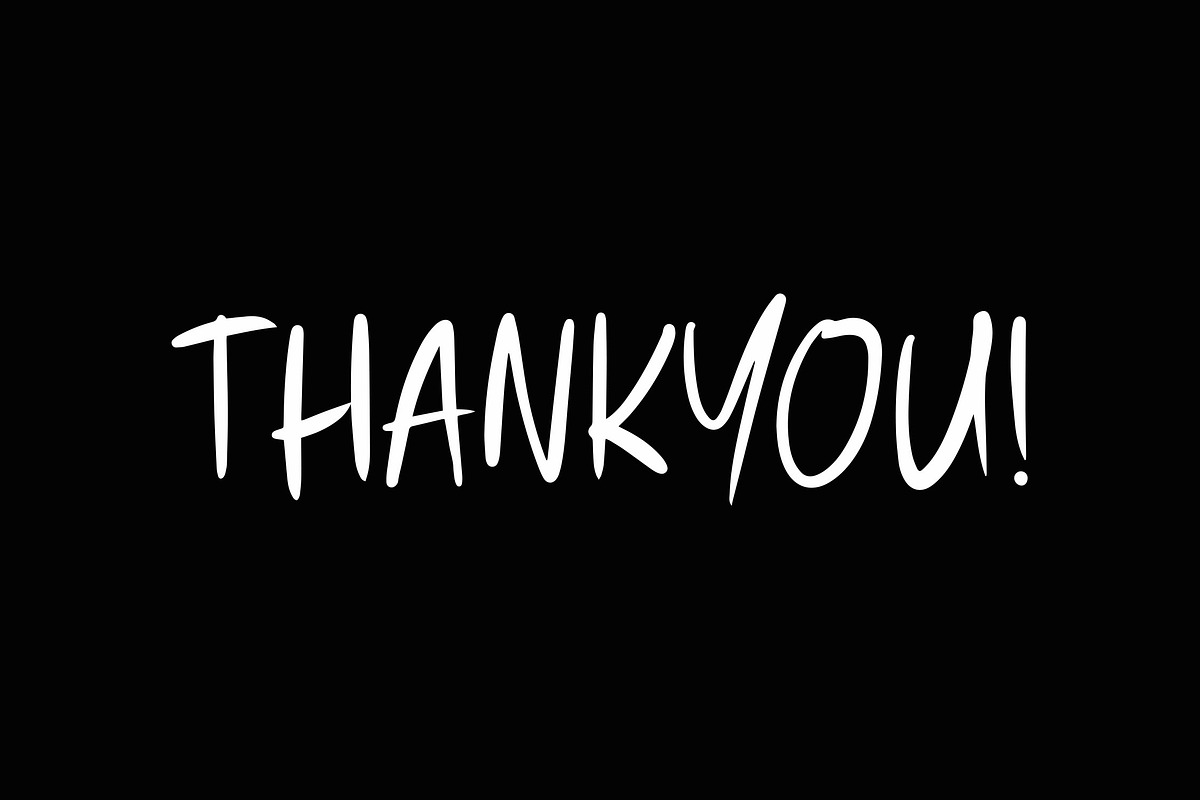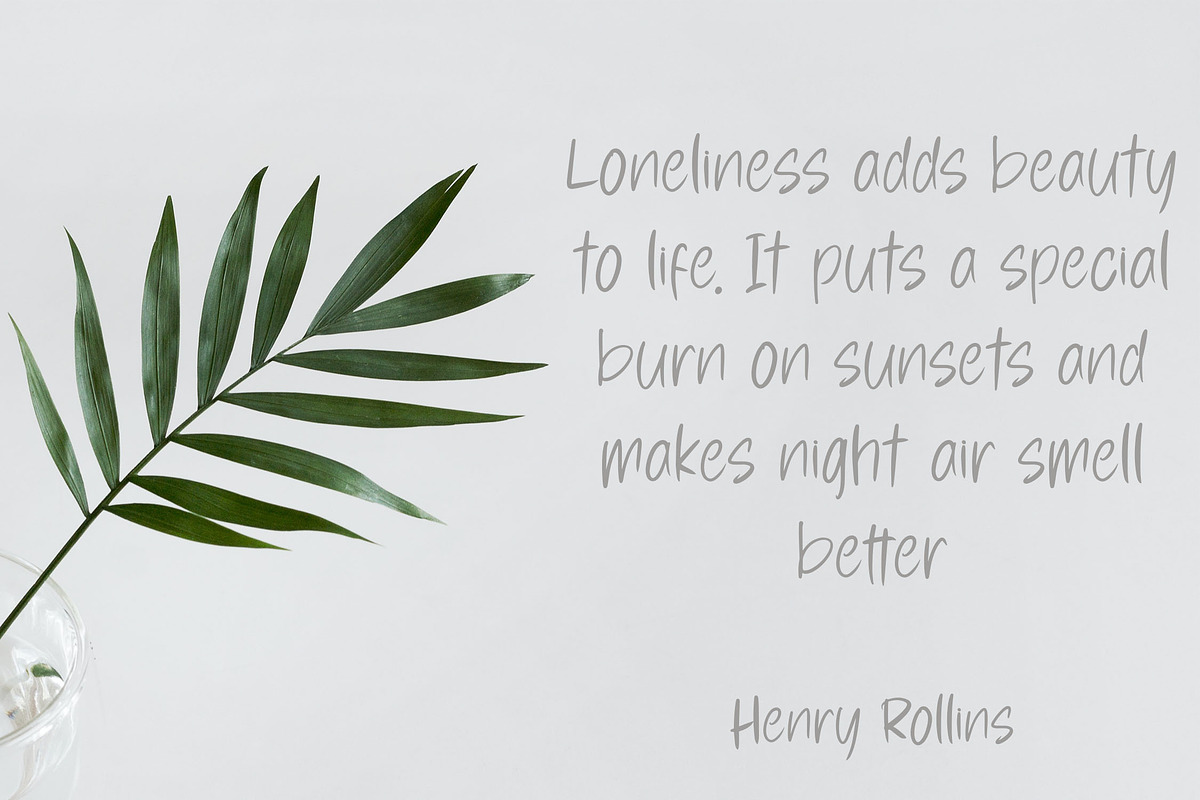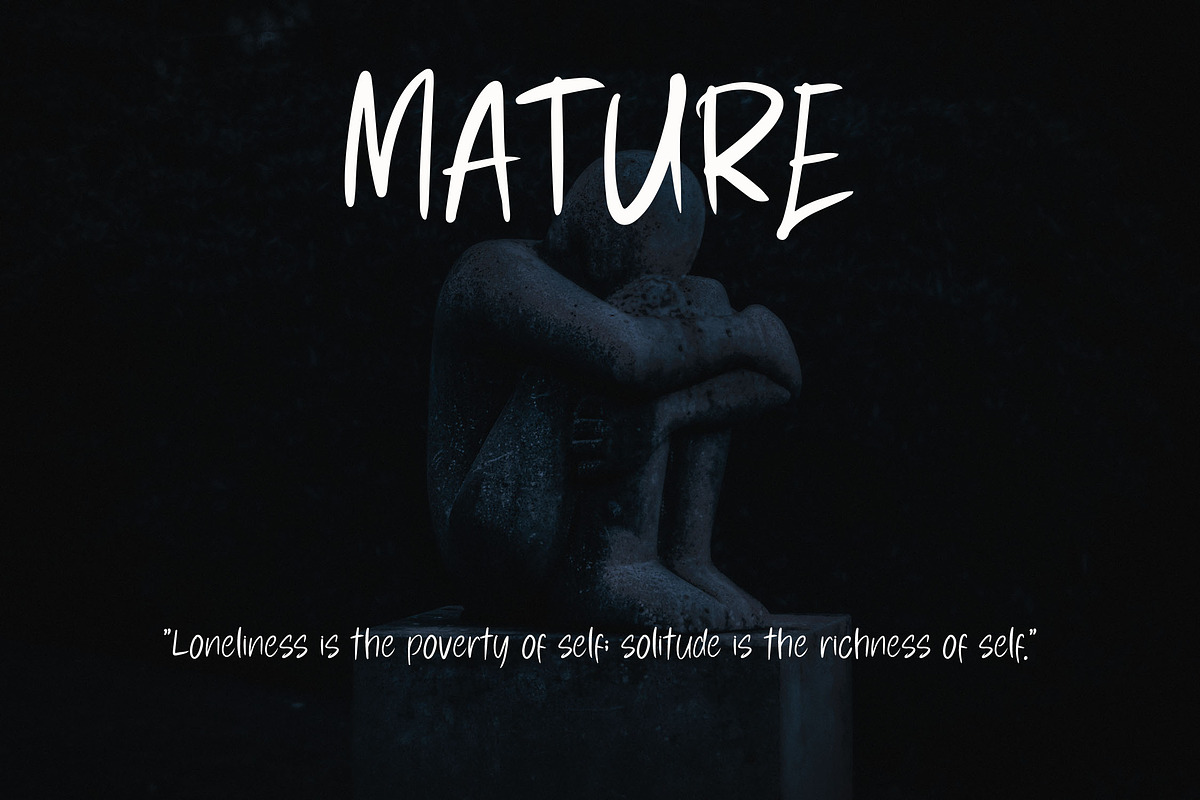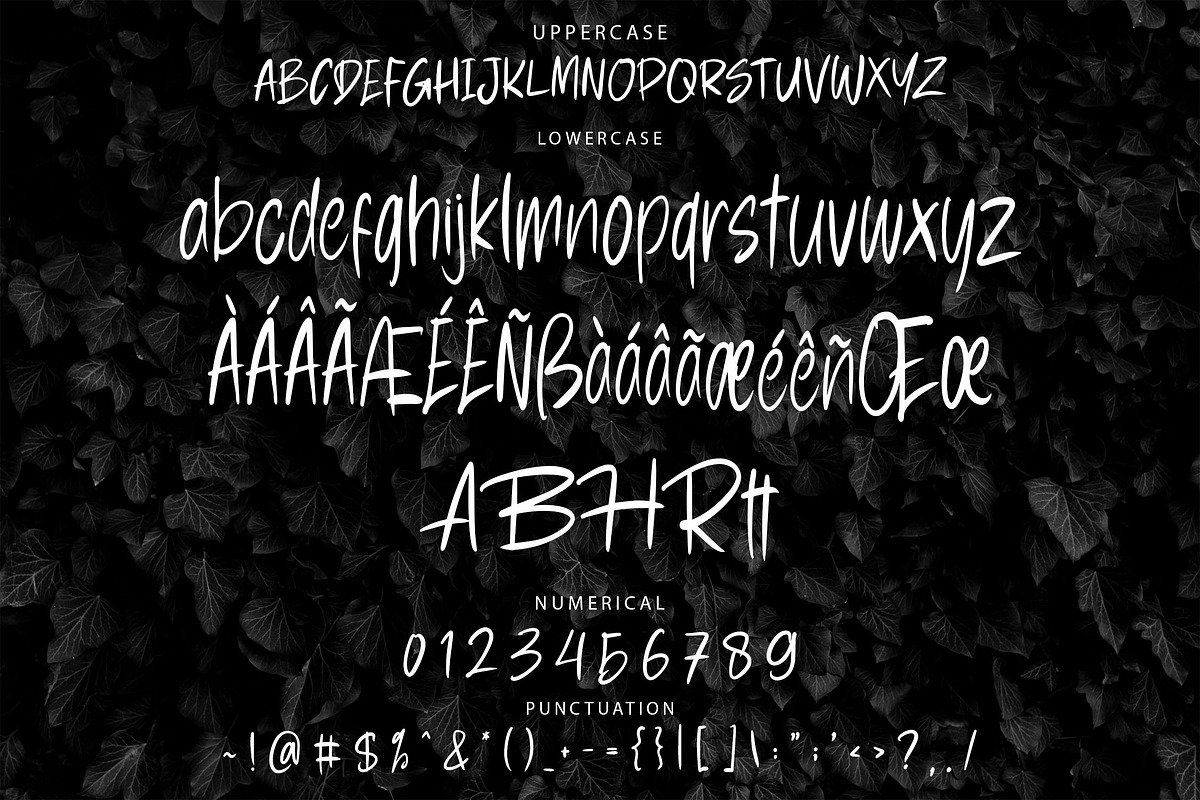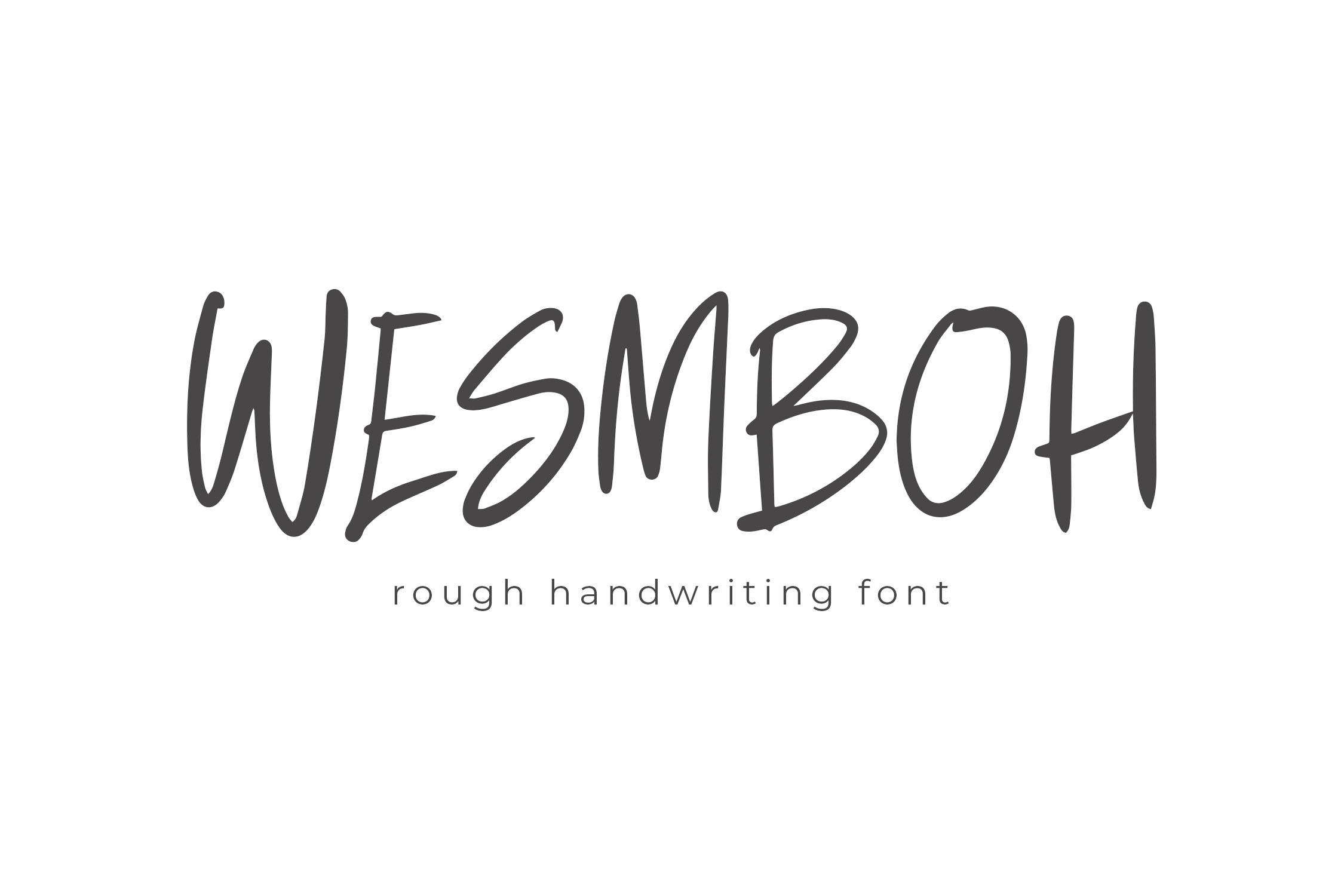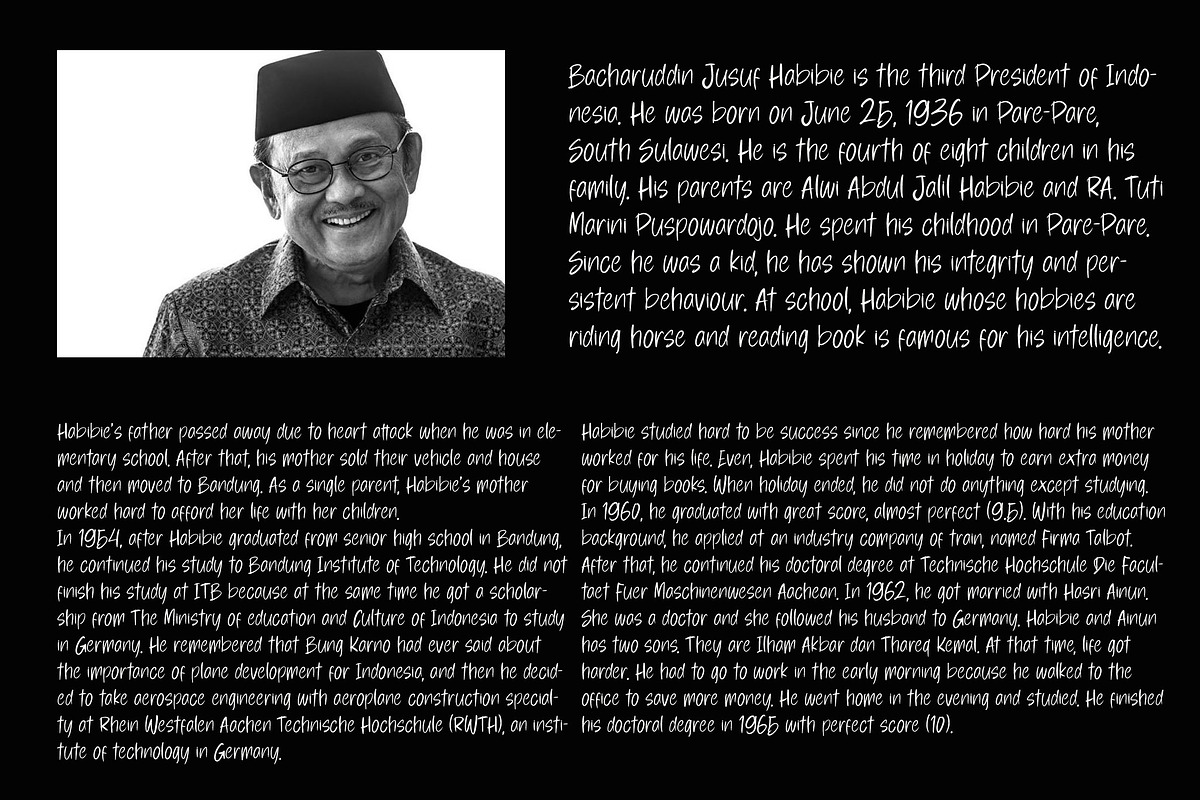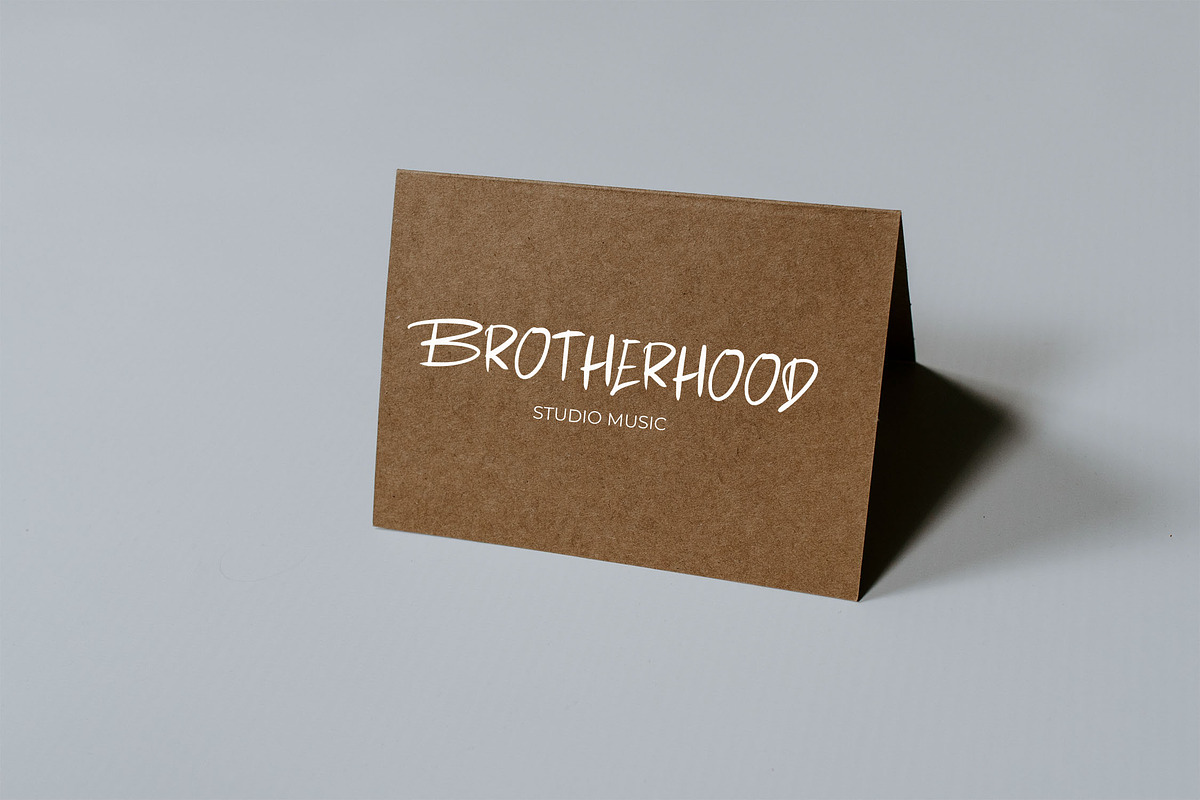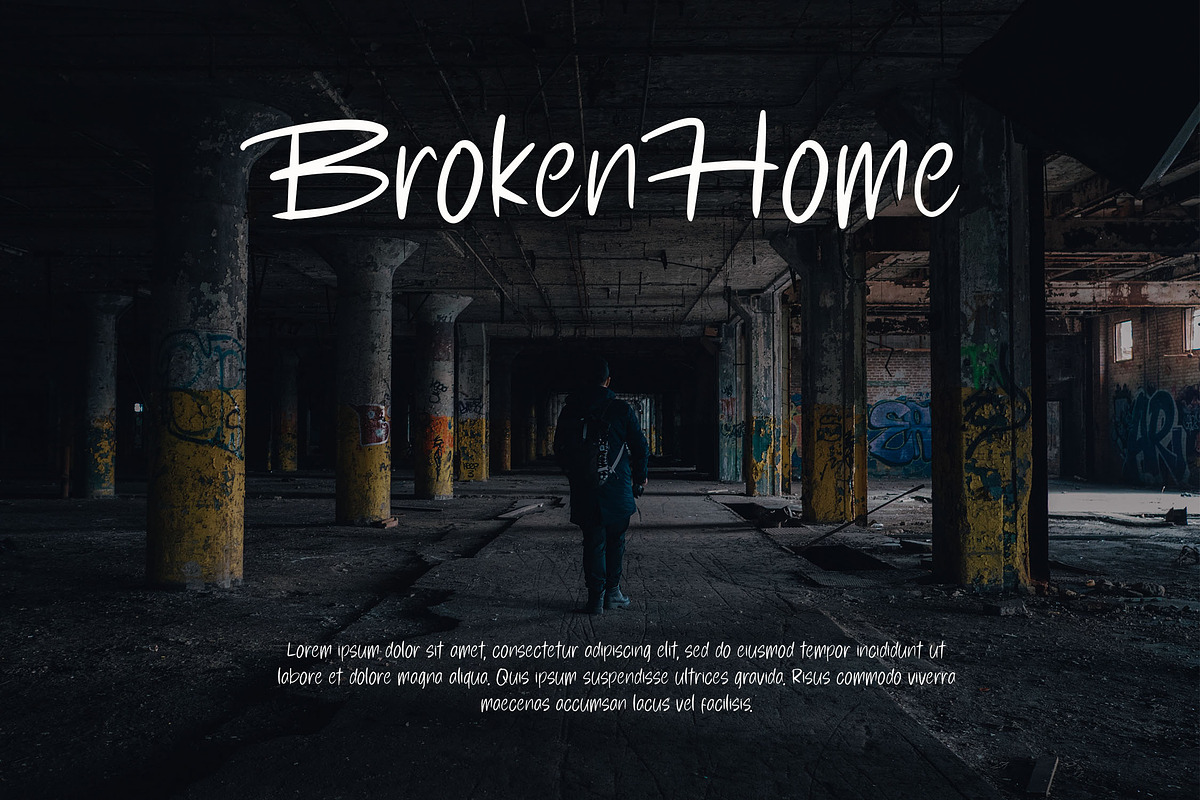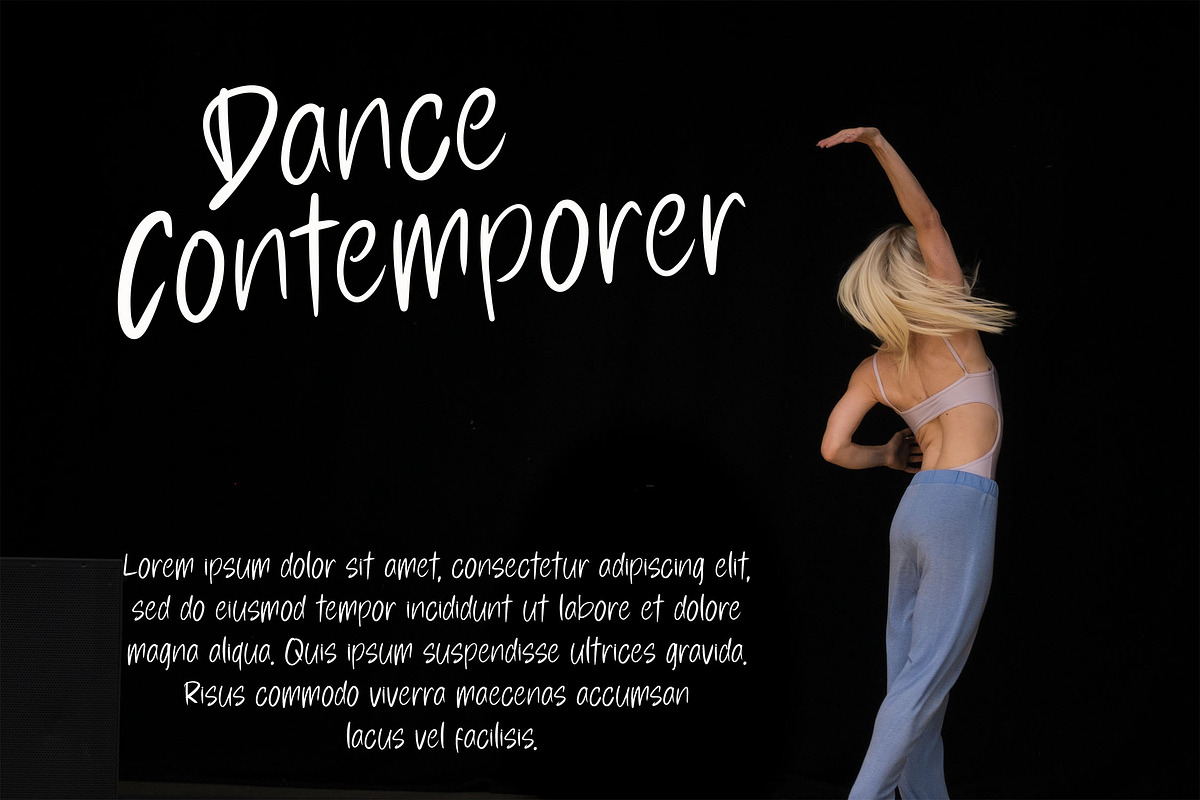
WESMBOH Handwriting Font
WESMBOH - Rough Handwriting Minimalist Font
WESMBOH is a distinctive handwriting font with a rough, minimalist style, offering a unique and edgy look for your designs. Its handcrafted characters add a creative, personal touch, making it ideal for branding, packaging, and other design projects that need an authentic and modern feel.
- Includes ligatures and stylistic alternates
- Supports multiple languages for global use